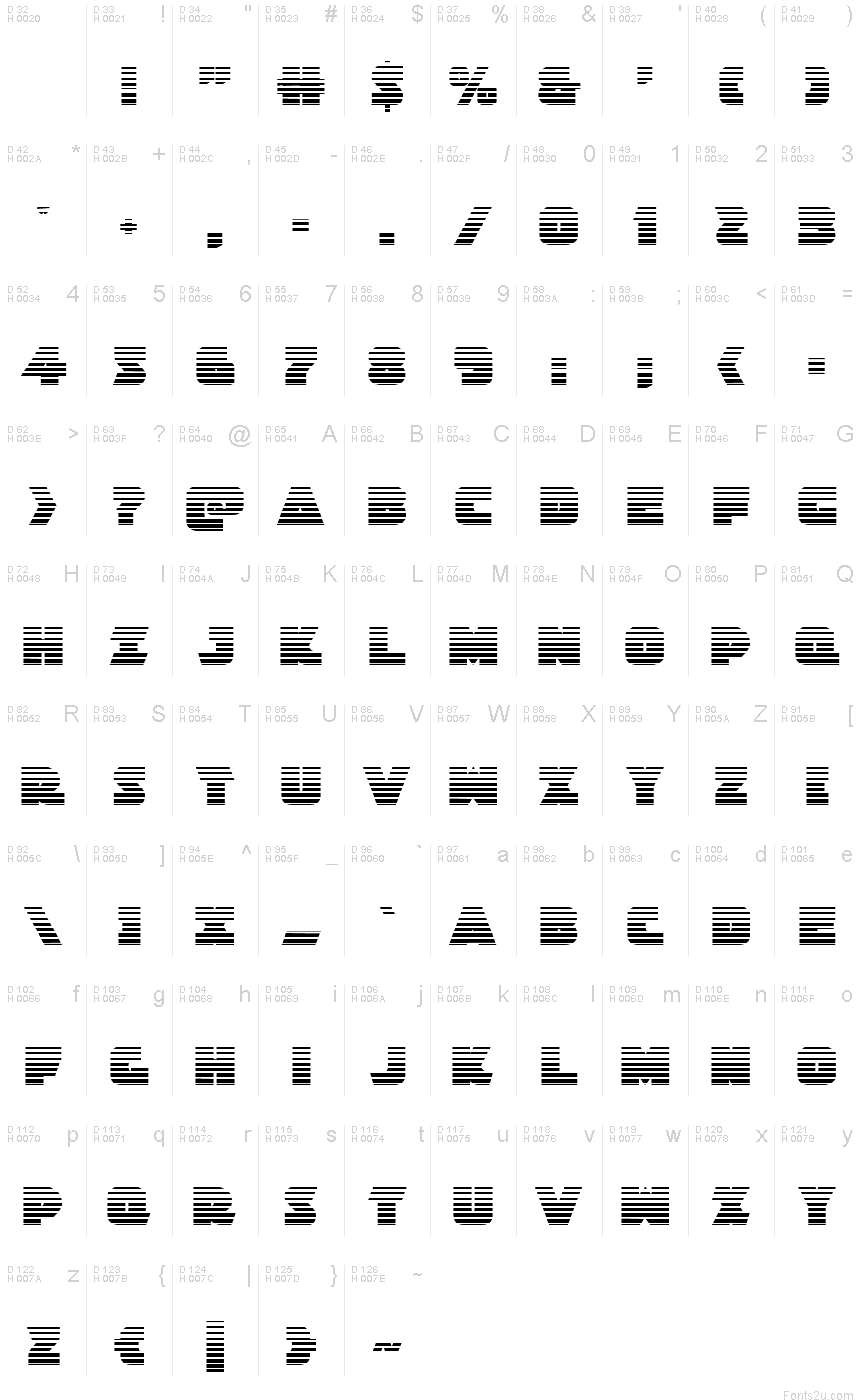
Jedi Special Forces Gradient by Iconian Fonts is a free modern eroded display font from 2012, drawn in broad, extended capitals split by repeated horizontal gaps. The sliced bands give every letter a fast, mechanical silhouette.
Science-fiction game graphics and sports merchandise both suit its combination of industrial weight and speed-line detailing, with electronic music packaging as another especially convincing setting. The striped letterforms can become part of a control-panel interface or team insignia instead of serving as neutral text.
Jedi Special Forces Gradient